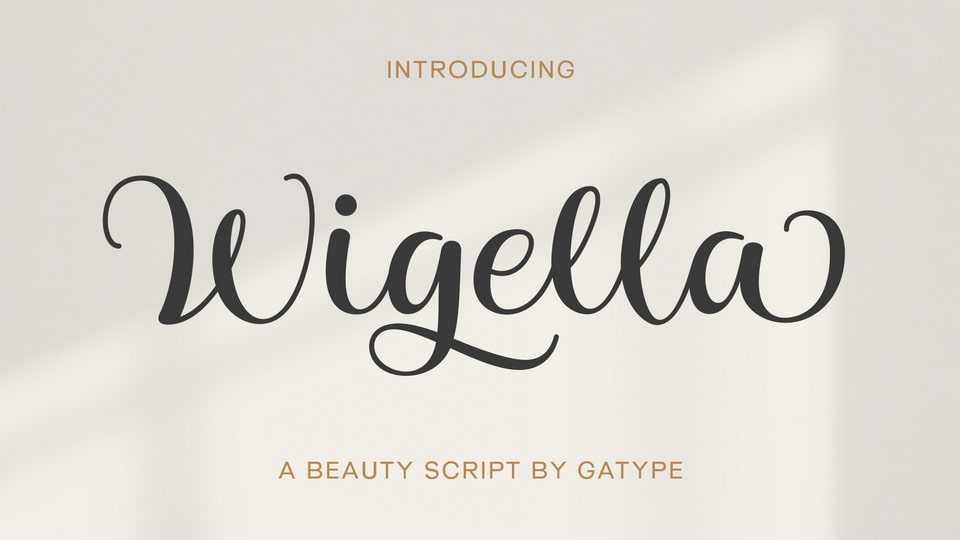
Download Wigella font, an elegant and stylish script typeface, often used for designs that require a feminine, romantic, or artistic touch. This font has a smooth, curved handwritten form with a classic accent.